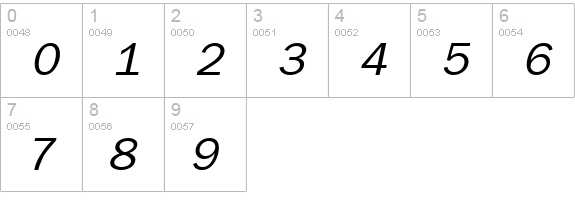
LibraryGothic Italic is a distinctive, italic variant in the LibraryGothic typeface family \xE2\x80\x94 well suited to design and typography projects.
LibraryGothic Italic is a stunning and elegant font that exudes a sense of sophistication and refinement. Its sleek, slender letterforms give off a mysterious and gothic vibe, making it perfect for adding a touch of drama to your designs. The italicized style adds a dynamic and stylish flair to any text, making it suitable for a wide range of projects. What makes LibraryGothic Italic even more appealing is that it is available for free download at FontsMarket.com. That's right, you can easily get your hands on this exquisite font without spending a dime. Whether you're working on a personal project or a professional design, LibraryGothic Italic is sure to elevate your work and make a lasting impression. Download it now and let your creativity soar with this captivating typeface.